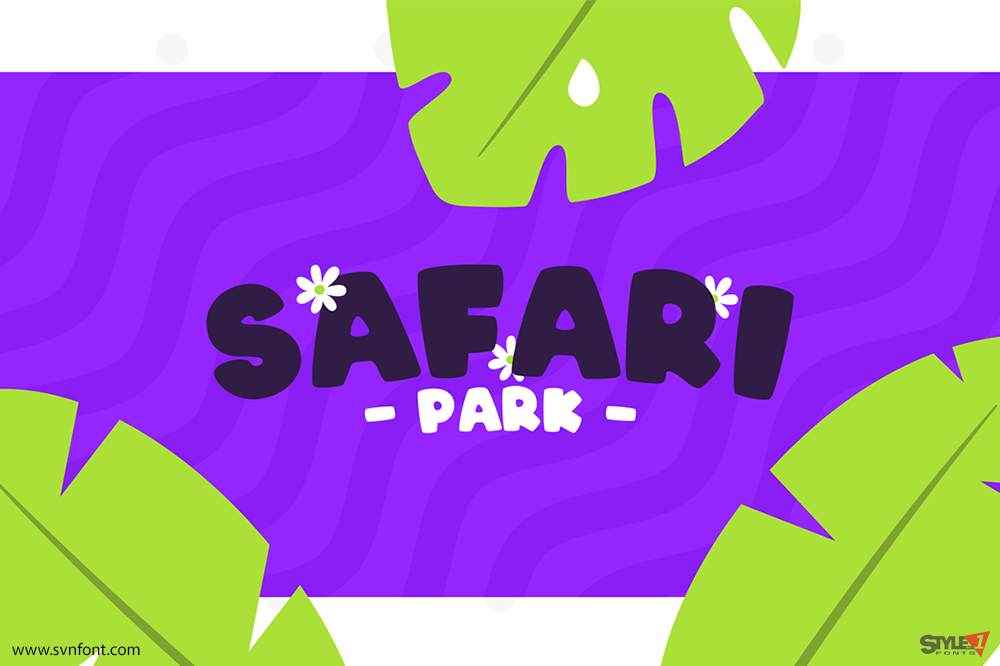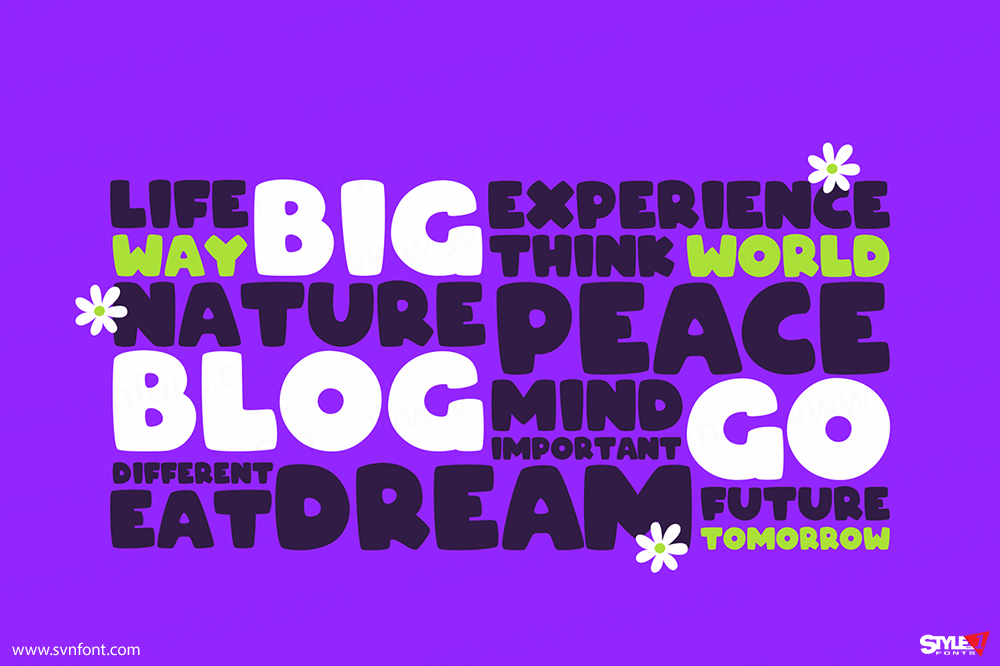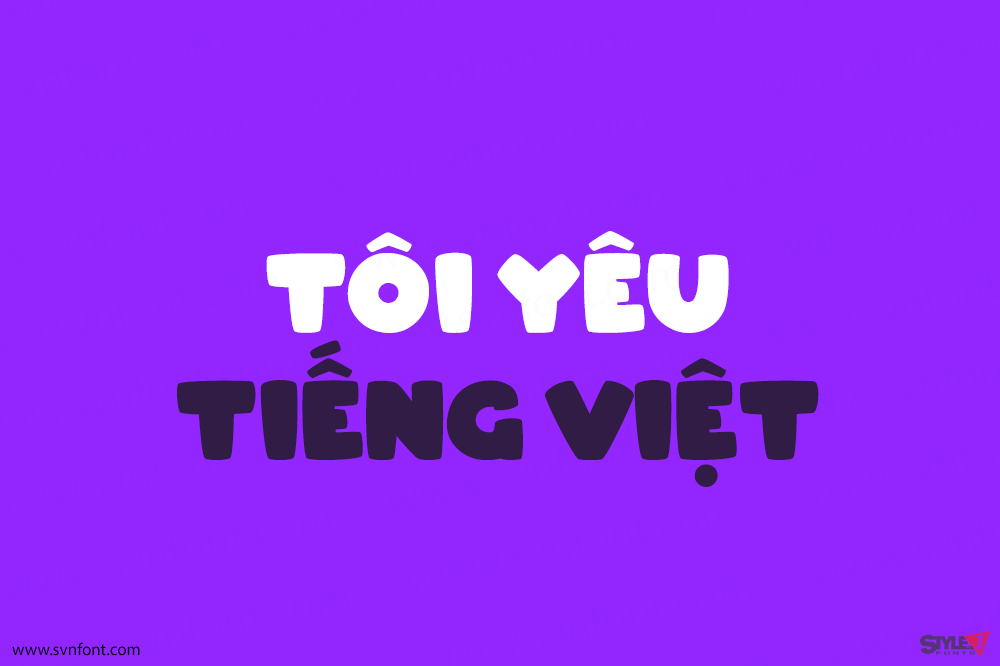
ARCO is an animated typeface, with more than 80 characters and uppercase alphabet only. It is free to use for personal and commercial projects, only with the respective recognition of my authorship in the credits.
Nhà thiết kế: Rafael Olivo
Nhà phát hành: Rafael Olivo